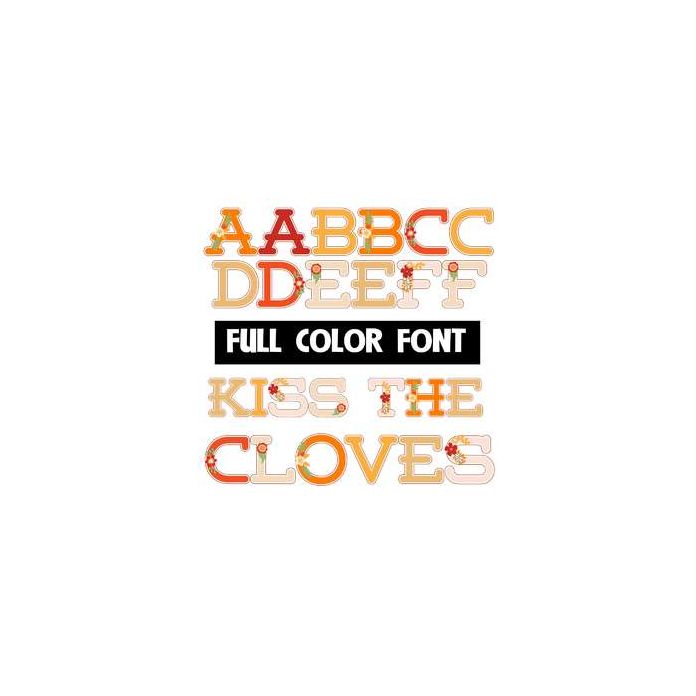
This full color font features fall-colored flowers on bit, hipster letters. This font works best for titles, displays, posters and more. Please note color fonts will show as black in non compatible programs. This font type is compatible with Silhouette Studio.